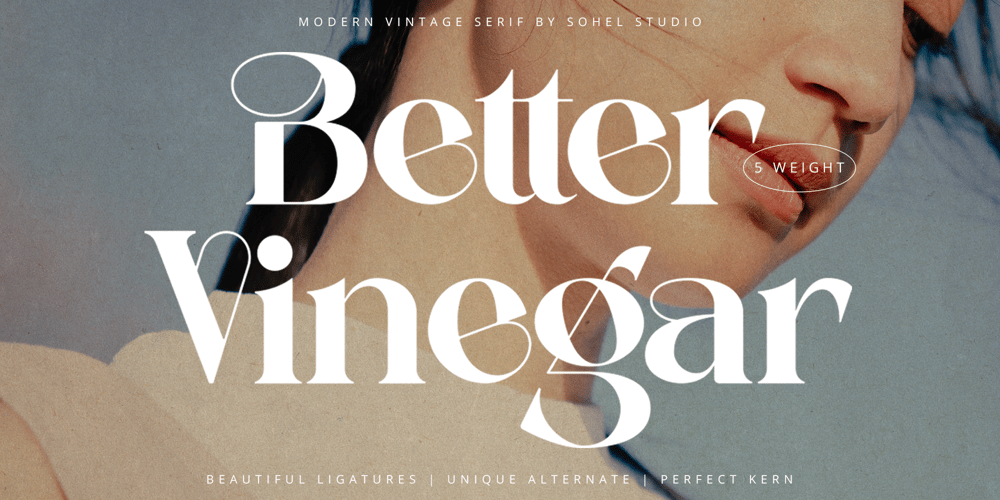
Better Vinegar Font Family was designed by Akhmad Husain Rifa’i and published by Sohel Studio. Better Vinegar contains 5 styles and family package options. Better Vinegar is a Modern vintage serif typeface with beautiful ligatures, Unique alternative , multilingual support with perfect kerning. This typeface is perfect for an elegant & luxury logo , classy editorial design, women’s magazine, fashion brand , cosmetic brand, fashion promotion , modern advertising design, invitation card, art quote, home decoration , book/cover titles, special events, and much more. Better Vinegar Features: · 5 Weights font (Regular,Italic,Outline,Bold,Thin) · Uppercase And Lowercase · Alternates And Ligatures · Numerals & Punctuation · Accented characters · Multilingual Support · Unicode PUA EncodedThanks and have a wonderful day .